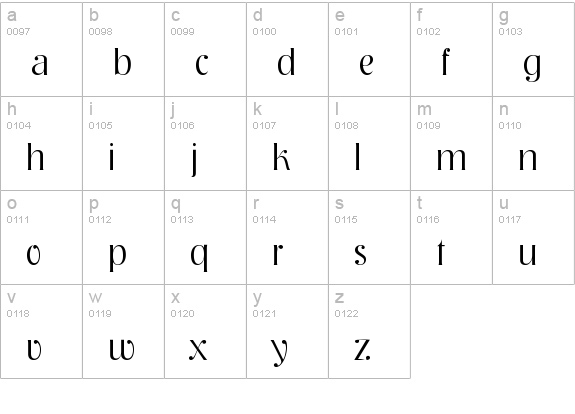
NashvilleEF-ExtraLight is an airy, ultra-refined variant in the NashvilleEF typeface family \xE2\x80\x94 well suited to minimalist headlines and refined display use.
Introducing NashvilleEF-ExtraLight, a modern and elegant typeface perfect for adding a touch of sophistication to your design projects. This sleek and stylish font features thin, delicate lines that exude a sense of refinement and grace. NashvilleEF-ExtraLight is ideal for a wide range of uses, from branding and advertising to invitations and packaging. Best of all, NashvilleEF-ExtraLight is available for free download at FontsMarket.com. This means you can easily access this stunning font and enhance your creations without any cost. Don't miss out on the opportunity to elevate your designs with the timeless beauty of NashvilleEF-ExtraLight. Download it today and start creating with style and elegance.